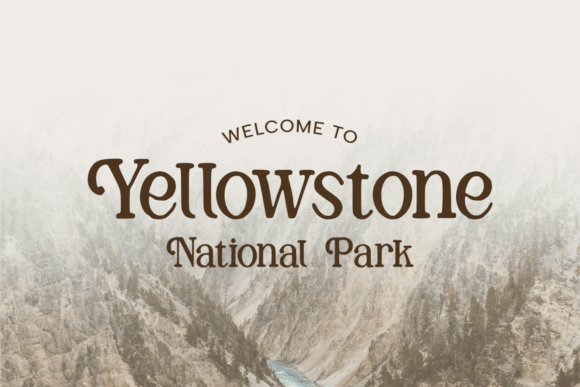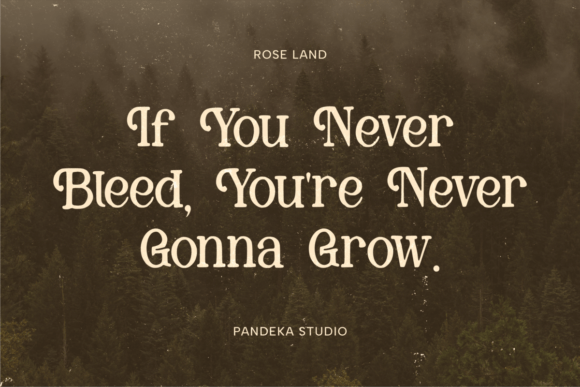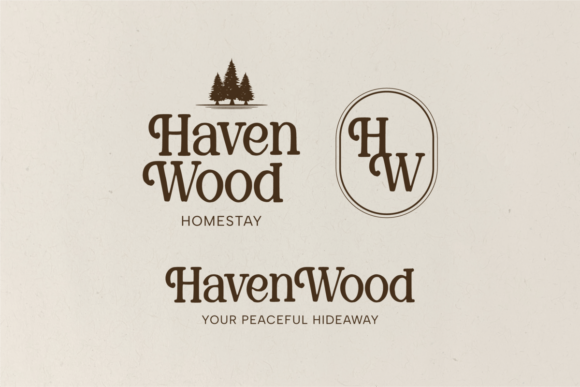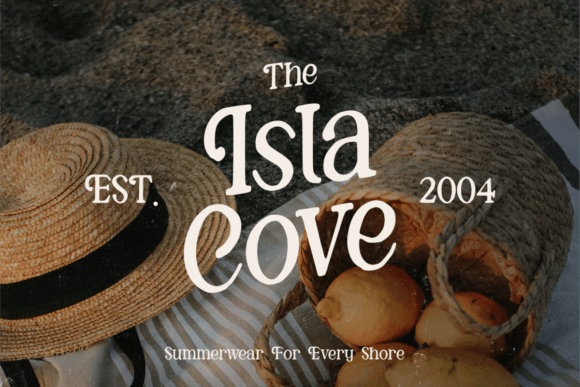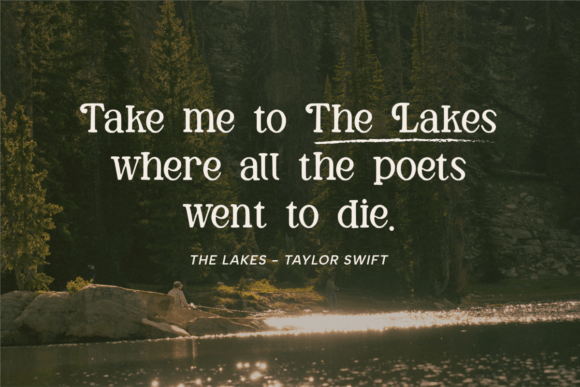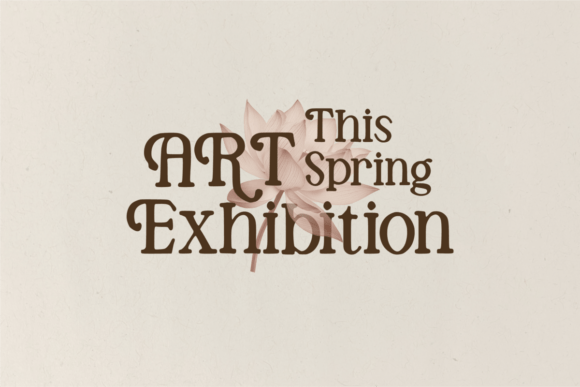
Introduction to Rose Land Font
Remember the moment when you stumbled upon the perfect font for your design project? The one that made all the elements come together in harmony, elevating your work from good to great? For designers, finding the right font can be a game-changer, and that’s exactly what Rose Land Font promises to deliver.
With its elegant serif design and handmade touch, Rose Land Font is a valuable addition to any design resource. Its organic curves and classic details strike the perfect balance between vintage charm and modern elegance, making it an ideal choice for creative projects that require a touch of sophistication.
Whether you’re working on a wedding invitation, branding, packaging, or editorial design, Rose Land Font is sure to bring a high-quality touch to your work. And the best part? It’s available for free download, making it an accessible design resource for designers of all levels.
Key Features of Rose Land Font
- High-quality design resource for creative projects, perfect for wedding invitations, greeting cards, and more.
- Unique, hand-drawn design with a transparent background, ideal for layering and customization.
- Perfect for designers looking for a high-quality, unique font to add a touch of elegance to their designs.
- Comes with a comprehensive character set, including uppercase and lowercase letters, numbers, and punctuation marks.
Honest Review: Rose Land Font
I recently had the chance to work with the Rose Land Font, and I must say it’s been a pleasant experience. As a designer, I’m always on the lookout for high-quality design resources that can elevate my creative projects. In this review, I’ll share my honest thoughts on what works well and what doesn’t.
- ✨ High-quality design: The Rose Land Font boasts beautiful, elegant lettering that’s perfect for creating a sophisticated and romantic vibe.
- ✨ Transparent background: The font’s transparent background makes it easy to use on any design project, whether it’s a logo, poster, or social media graphic.
- ⚠️ Limited font styles: While the Rose Land Font is beautiful, it’s limited to a single style, which might not be suitable for projects that require multiple font variations.
- ⚠️ Not ideal for bold typography: Due to its elegant design, the Rose Land Font might not be the best choice for projects that require bold, attention-grabbing typography.
Overall, I’m impressed with the Rose Land Font’s design quality and versatility. While it may have some limitations, it’s a great resource for designers looking to add a touch of elegance to their creative projects.
Tips for Getting the Most Out of Rose Land Font
For the best results, use Rose Land Font on a transparent background to create a clean and modern look. You can also experiment with different font sizes and styles to add visual interest to your design.
Rose Land Font is a versatile design resource that can be used in a variety of creative projects, including graphic design, digital art, and typography. It’s perfect for creating high-quality graphics and text overlays for websites, social media, and marketing materials.